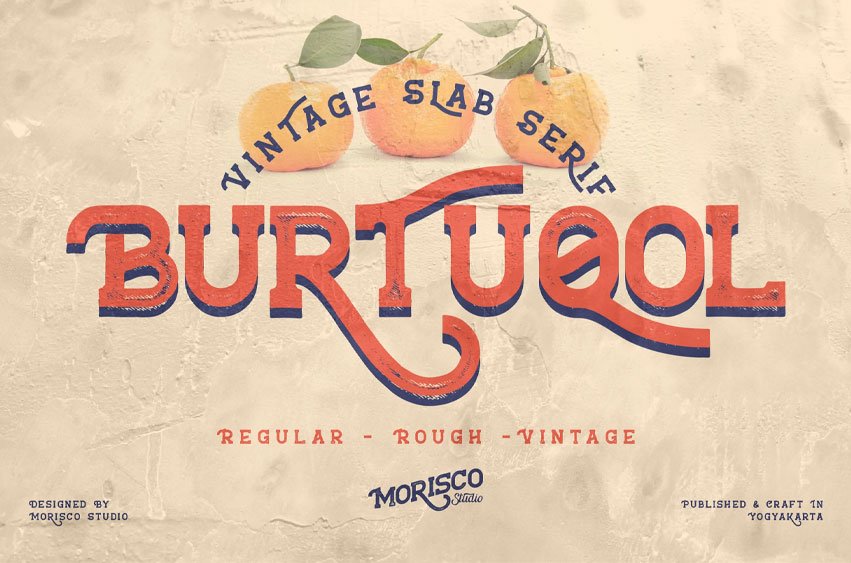
Burtuqol Font is a handmade Vintage Slab Serif font perfect for branding, logo, t-shirt (apparel), headline, packaging, greeting card, wedding invitation, and more.